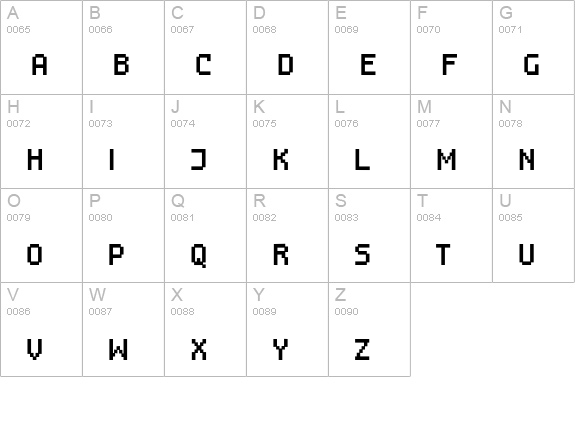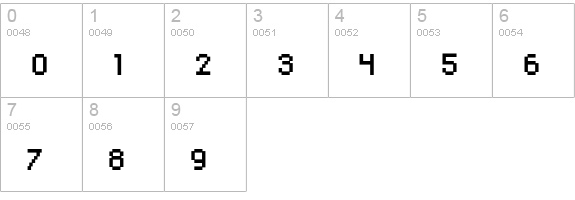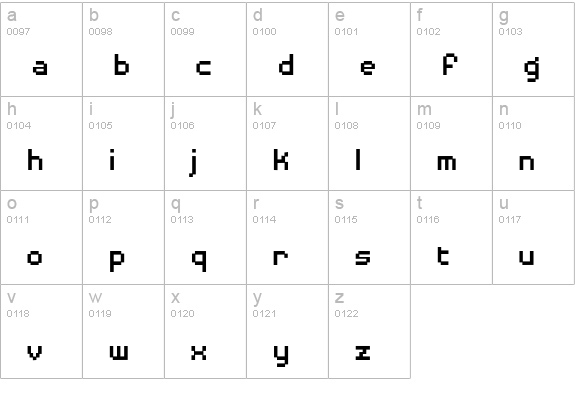
DisposableDroid BB Font Details
Introducing DisposableDroid BB, a one-of-a-kind font that combines the simplicity of a disposable aesthetic with the futuristic charm of a droid-like design. This unique typeface is perfect for adding a touch of modernity and playfulness to your creative projects. DisposableDroid BB features a clean and crisp style, with sharp edges and geometric shapes that give it a distinct robotic feel. It is a versatile font that can be used in a wide range of applications, from logos and branding materials to social media graphics and website designs. What sets DisposableDroid BB apart is not only its striking visual appeal, but also its availability for free. Yes, you read that right! This incredible font is freely available to download at FontsMarket.com, making it accessible to designers, creatives, and typographers of all levels. Whether you're a professional designer looking to add a unique touch to your latest project or a hobbyist wanting to experiment with typography, DisposableDroid BB is the font for you. Its free availability allows you to explore its potential without any limitations, giving you the freedom to create stunning designs that stand out from the crowd. So why wait? Embrace the futuristic charm of DisposableDroid BB and download it for free at FontsMarket.com today. Unleash your creativity and let this exceptional font elevate your designs to a whole new level.